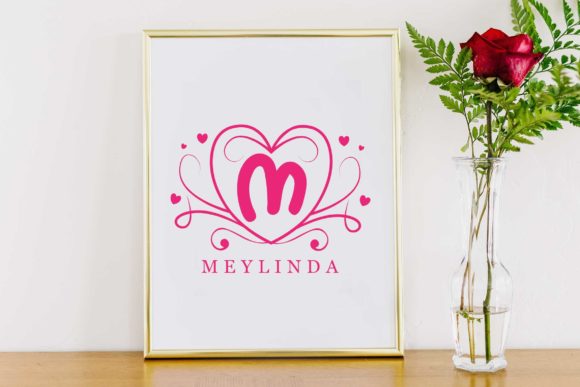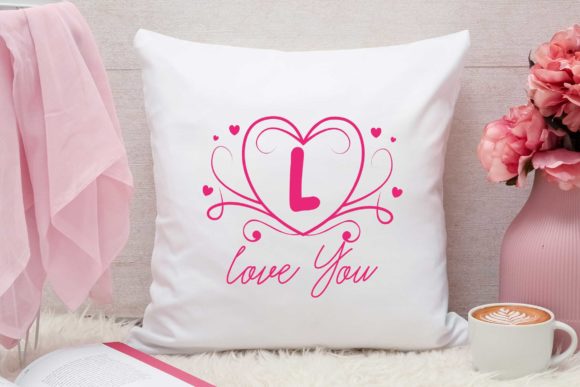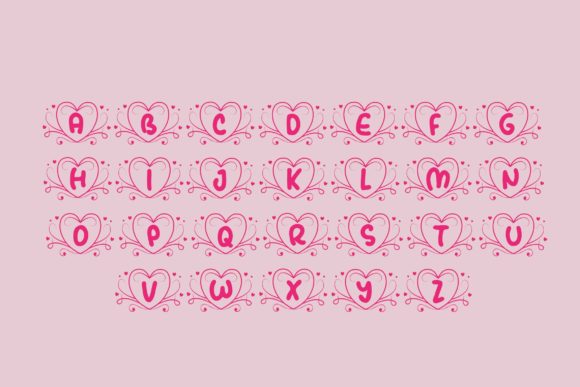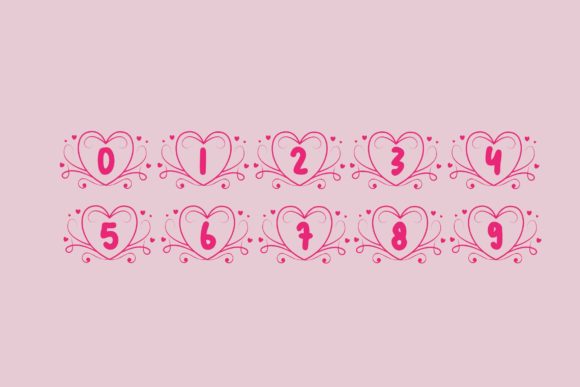
Introduction to Romantic Monogram Font
There’s something magical about creating something special for the one you love. Whether it’s a handwritten note, a custom wedding invitation, or a personalized gift, the thought and effort you put into it makes all the difference. I still remember the first time I stumbled upon the Romantic Monogram Font – it was love at first sight! The elegant curves and harmonious design made me want to use it for every creative project I could think of.
As a designer, I can attest to the value of having a versatile and high-quality font like the Romantic Monogram Font in your design resource arsenal. Its transparent background and delicate details make it perfect for adding a touch of romance to any design. And the best part? It’s available for free download, making it accessible to designers of all levels.
Key Features of Romantic Monogram Font
- Unique, hand-drawn design suitable for various creative projects, including wedding invitations, gift tags, and other romantic designs.
- Perfect for designers and artists seeking a beautiful, elegant font for their design resources, with a resolution of 300 DPI.
- Designed with love, this font is ideal for adding a touch of romance and sophistication to any creative project.
- Available in various sizes and styles, allowing users to customize their designs to suit their unique needs and preferences.
Honest Review: Romantic Monogram Font
I recently came across the Romantic Monogram Font, and I must say it’s a beautiful addition to any design resource. The high-quality font is perfect for creative projects that require a touch of elegance and sophistication.
What works well about this font is its versatility. You can use it for wedding invitations, custom logo designs, or even as a header for a romantic blog. The font comes in a transparent background, making it easy to customize and integrate with your design.
- ✨ Beautiful, high-quality design that’s perfect for creative projects
- ✨ Versatile font that can be used for various design applications
- ✨ Includes a transparent background for easy customization
However, there are a few limitations to consider. The font only includes uppercase letters, which might limit its use in certain design applications. Additionally, the font might not be suitable for projects that require a more modern or edgy aesthetic.
Overall, I’m impressed with the Romantic Monogram Font. Its classic design and versatility make it a valuable addition to any design resource. While it has some limitations, it’s a great option for designers looking for a high-quality, free font for their creative projects.
Romantic Monogram Font
Use Romantic Monogram Font in creative projects such as wedding invitations, birthday cards, and love letters.